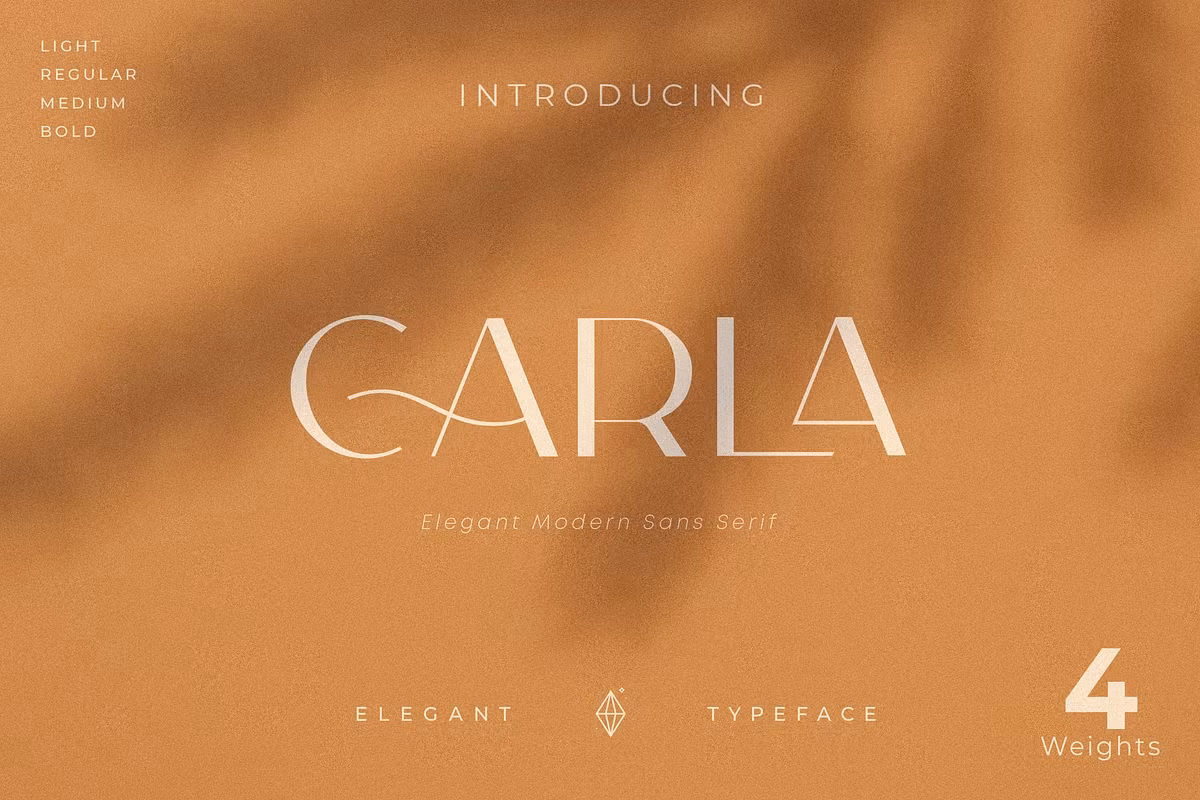
Carla Sans - Elegant Typeface Free Download
Carla Sans – Elegant Typeface Free Download is a modern and minimalist sans-serif font that radiates sophistication and clarity. Please note: you must purchase this font for commercial use, but you can test it through a free download. With its clean lines, soft curves, and stylish proportions, Carla Sans is perfect for branding, website headers, fashion lookbooks, social media graphics, and high-end packaging.
This typeface is designed for elegance without excess—making it ideal for designers who want to communicate professionalism with a subtle touch of luxury. Whether you're crafting a sleek logo or building a refined editorial layout, Carla Sans – Elegant Typeface Free Download offers timeless appeal and excellent readability. Fully compatible with Adobe Illustrator, Photoshop, Canva, and more, it integrates effortlessly into any workflow. Download it today for personal use and let Carla Sans bring effortless grace to your next design.